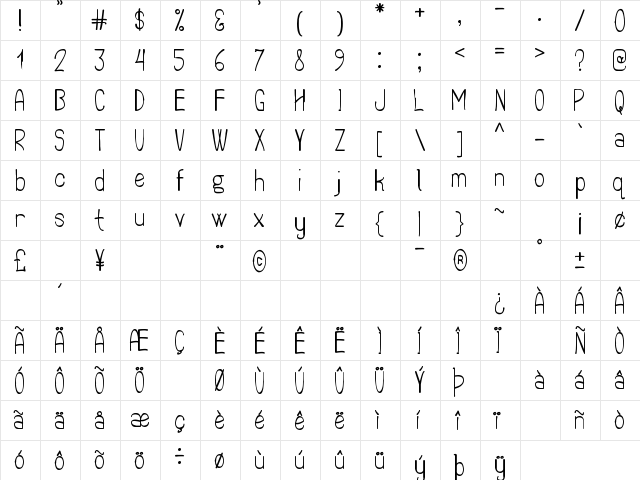
The Quick Frog St Regular
Design Context for The Quick Frog St Typeface
The Quick Frog St is a composed and adaptable typeface that performs quietly and consistently across a wide range of design contexts.